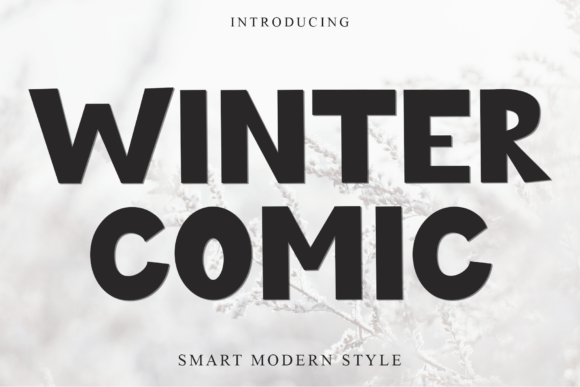
Winter Comic Font: The Perfect Choice for Creative and Casual Designs
Are you looking for a font that can add a touch of warmth and friendliness to your designs? Look no further than the Winter Comic Font. This casual and creative font is perfect for personal projects, invitations, and social media graphics. Its round, playful strokes create a relaxed and approachable feel that is sure to capture the attention of your audience.
Key Features of Winter Comic Font
- Charming, hand-drawn aesthetic: The Winter Comic Font has a unique and fun touch that sets it apart from other fonts.
- Round, playful strokes: The font’s round strokes create a relaxed and approachable feel, perfect for casual designs.
Benefits of Using Winter Comic Font
The Winter Comic Font offers several benefits to designers and artists. Its casual and creative aesthetic makes it perfect for:
- Personal projects: Add a touch of warmth and friendliness to your personal projects, such as photo albums, scrapbooking, and more.
- Invitations: Create unique and eye-catching invitations for parties, events, and special occasions.
- Social media graphics: Use the Winter Comic Font to create engaging and interactive social media graphics that capture the attention of your audience.
Tips for Using Winter Comic Font
Here are some tips for using the Winter Comic Font:
- Use it for casual designs: The Winter Comic Font is perfect for casual designs, such as social media graphics, invitations, and personal projects.
- Experiment with colors: The font looks great in bright and bold colors, so don’t be afraid to experiment.
- Mix and match: Mix and match the Winter Comic Font with other fonts to create a unique and eye-catching design.
Font Pairing Suggestions
The Winter Comic Font pairs well with other fonts that have a similar playful and casual aesthetic. Here are some font pairing suggestions:
- Open Sans: A clean and modern sans-serif font that pairs well with the Winter Comic Font.
- Lato: A sans-serif font with a playful and casual feel that pairs well with the Winter Comic Font.
- Great Vibes: A script font with a fun and creative aesthetic that pairs well with the Winter Comic Font.
The Winter Comic Font is a versatile and creative font that is perfect for casual designs. Its charming, hand-drawn aesthetic and round, playful strokes create a relaxed and approachable feel that is sure to capture the attention of your audience. With its standard PUA Encoded glyphs and multi-application compatibility, the Winter Comic Font is a great addition to any designer’s font library.